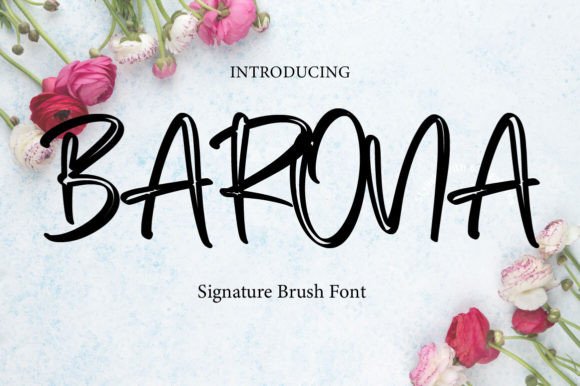
Introducing Barona Font, the ultimate choice for creating captivating posters and fliers that will leave a lasting impression on your audience. This delightful script font, created by gunaloe12, is the perfect blend of fun and casual elegance, making it ideal for all your creative endeavors.
With Barona Font, your crafty ideas will come to life with an effortless flair. Its unique handwritten style adds a touch of authenticity and personality to your designs, setting them apart from the crowd. Whether you're designing event posters, promotional fliers, or even personalized invitations, Barona Font will instantly elevate your creations to a whole new level.
Unleash your creativity and ignite the emotions of your audience with Barona Font's captivating charm. Its smooth and flowing curves evoke a sense of joy, playfulness, and excitement, making it perfect for projects that require a touch of whimsy. Let your imagination run wild as you infuse your designs with the infectious energy that Barona Font brings.
But Barona Font isn't just about aesthetics; it's also a powerful tool for effective communication. Its clarity and readability ensure that your message is conveyed effortlessly, capturing the attention of your audience in an instant. Whether you're promoting a sale, announcing an event, or spreading a heartfelt message, Barona Font will deliver your words with impact and precision.